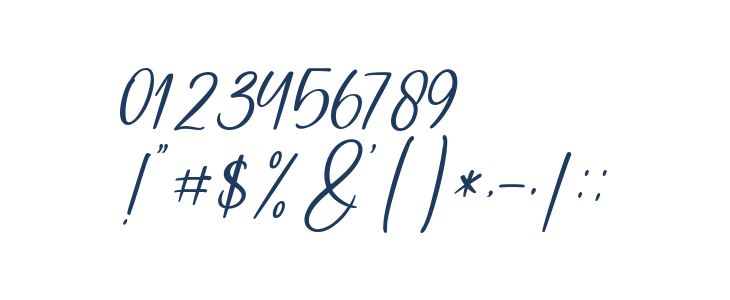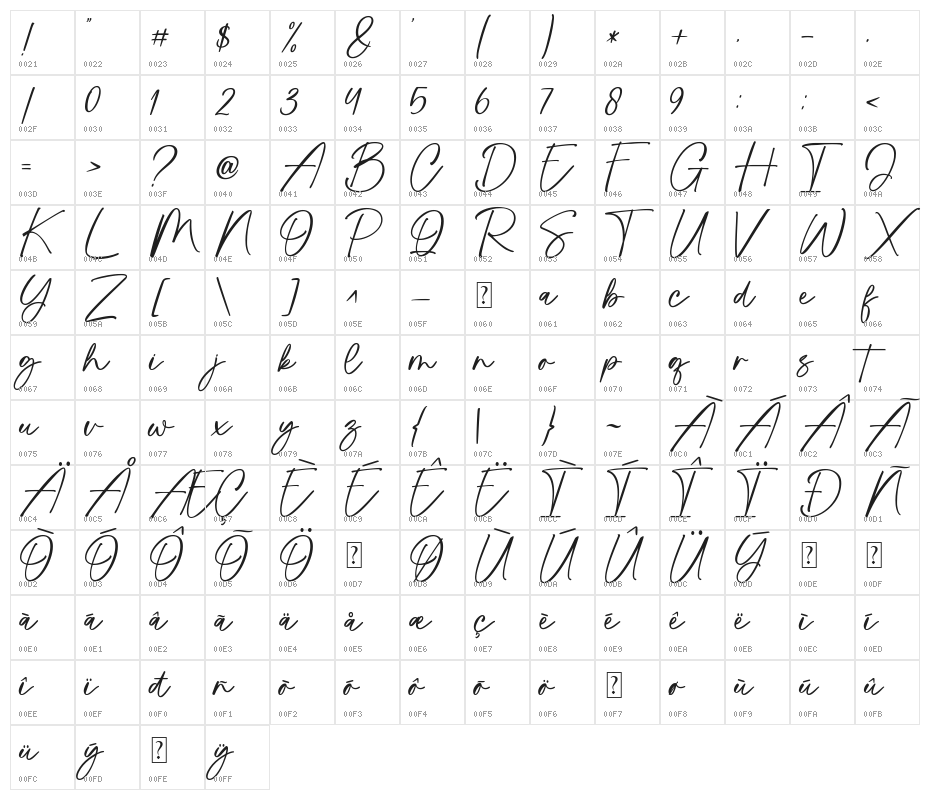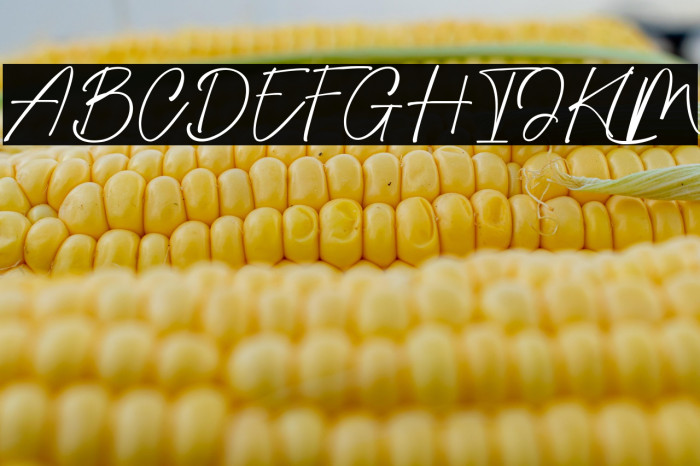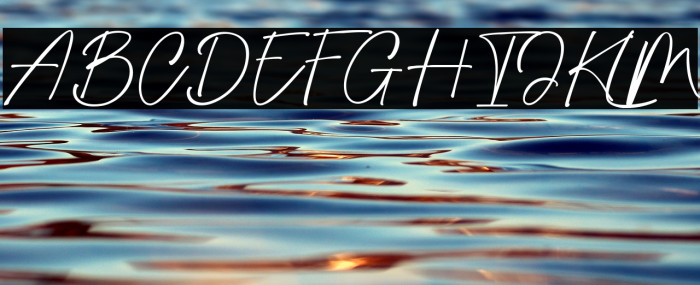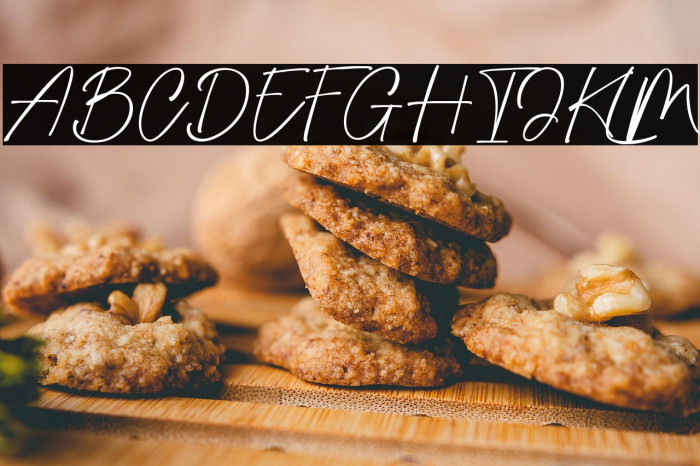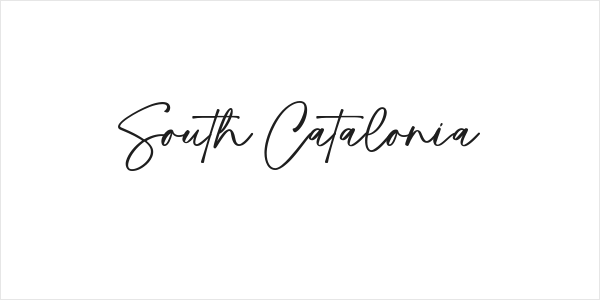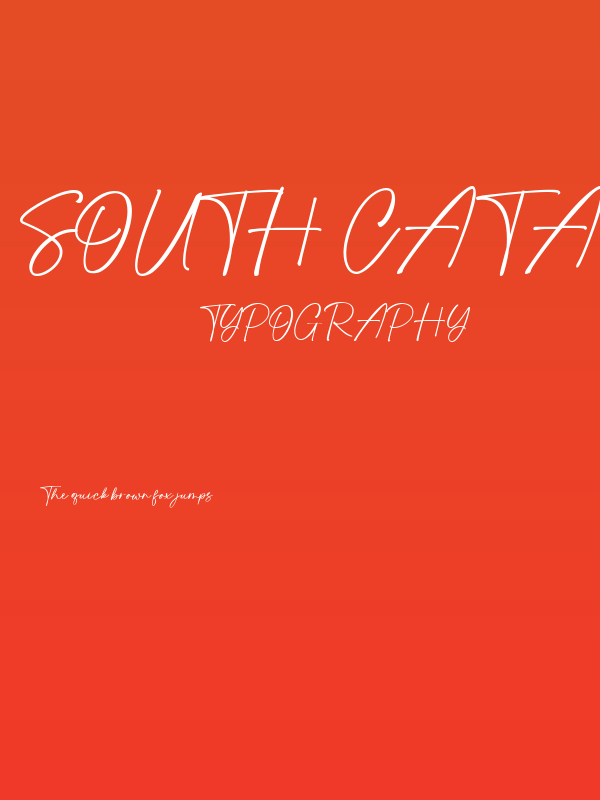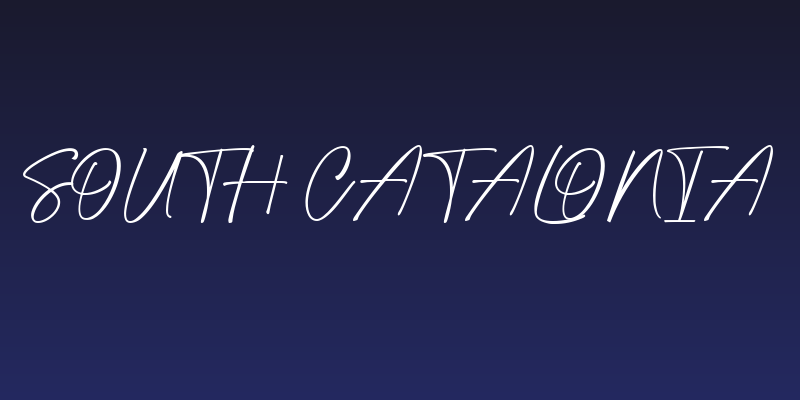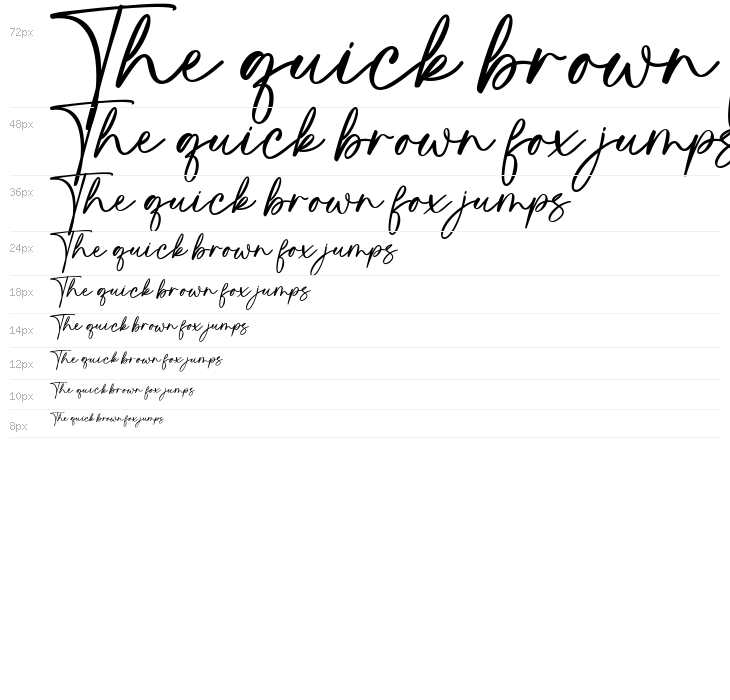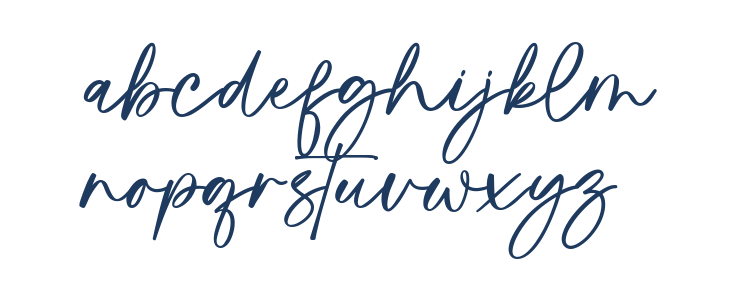
South Catalonia Font
South Catalonia Description
This font features a dynamic and fluid handwritten style, characterized by its elegant and flowing script. The uppercase letters exhibit a graceful and slightly elongated form, while the lowercase letters maintain a consistent and smooth flow. The numerals are clear and distinct, complementing the overall aesthetic. Special characters are seamlessly integrated, maintaining the font's cohesive appearance. The strokes are moderately thick, providing a balanced contrast that enhances readability without sacrificing the artistic flair. This font exudes a sense of sophistication and creativity, making it ideal for projects that require a personal touch.